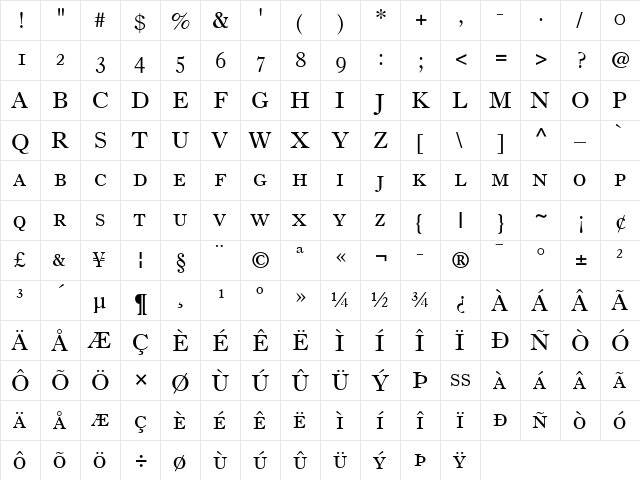
OldStyle 7 SC Regular
Design Context for OldStyle 7 SC Typeface
OldStyle 7 SC carries the refined structure of traditional serif typography, with bracketed terminals and considered proportions that communicate credibility and craft.
Pro Tip: Set OldStyle 7 SC with slightly loose tracking in headlines to let each letterform's detail read clearly at display sizes.